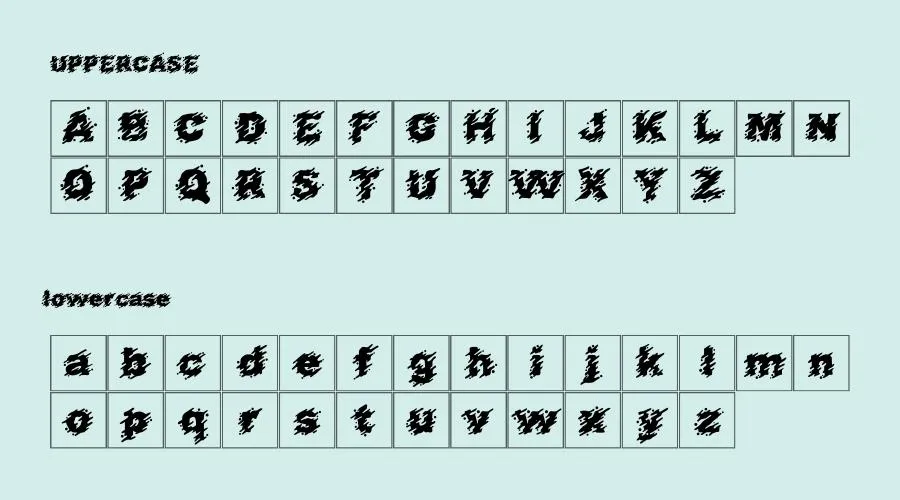
Splat Font
About Splat Font
The Splat Font was designed by a well-known font-making industry named HighUpNorth LLC and is under the sub-category of script fonts as brush fonts. This font has an attractive and good-looking texture with multiple types of styles and weights like Italic, bold, and Regular.
Due to its stylish look, it is perfect for CSS and adobe photoshops, so you may utilize logo designs, posters, and much more designs with the help of this font. The Splat font includes uppercase, lowercase, digits, symbols, signs, punctuations, and much more projects.
The Splat Font is perfect for making numerous projects. You can utilize its neat and new modern shape texture for creating headings, titles, and many other purposes. it may also utilize for creating logo designs, posters, banners, and many more.
Name Splat Font
Designer HighUpNorth LLC
Style Brush
• Splat Italic
• Splat Bold
• Splat Regular
What type of font is Splat Font?
The Splat Font was designed by a well-known graphic designer named Darell Flood and is under the category of the fancy texture family.
Can I use the Splat Font for a design project?
Yes, you can utilize this wonderful typeface in your creative tasks. It is good for signs, symbols, flags, and brochures.
Is Splat Font a good font for a website?
In a way, you can tell that it is a reasonable website typeface. It is suitable for headings and labels. But it is not suitable for the body text.